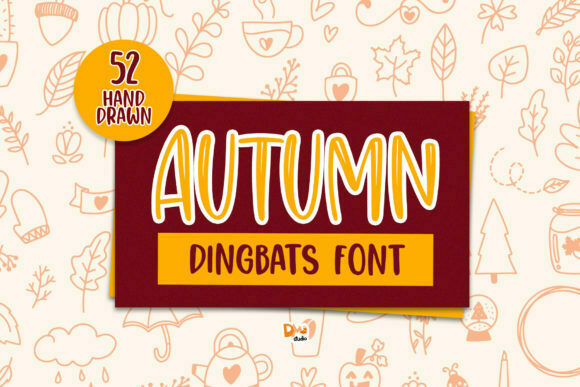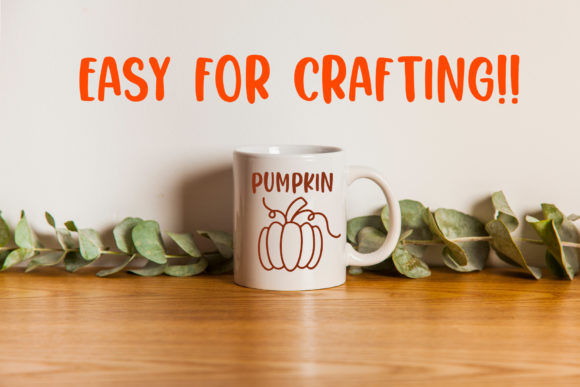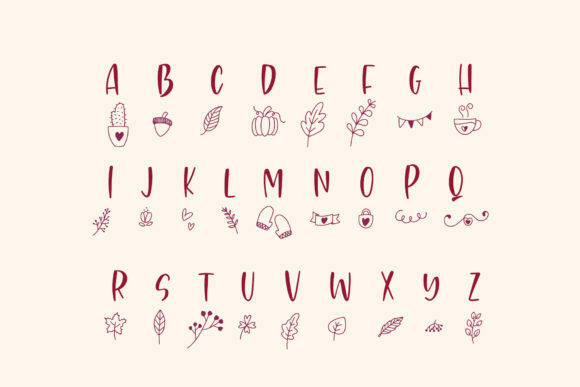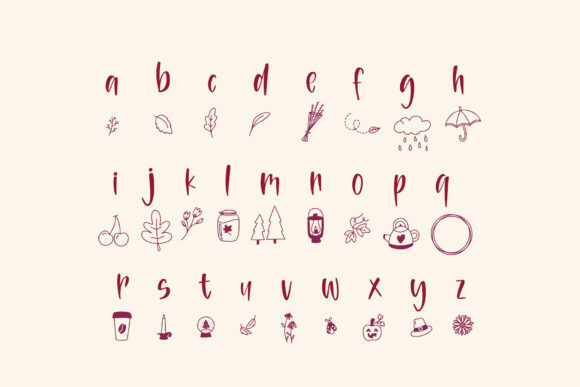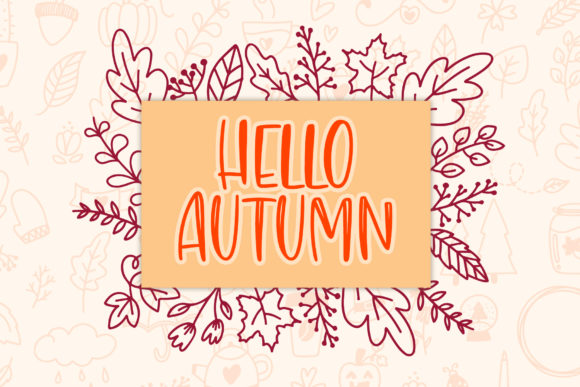
About Autumn Font
Absolutely! Autumn is a cute and unique dingbats font that can bring your fall designs to the next level. Here are some ways you can use the Autumn font to enhance your projects:
1. Fall Greeting Cards: Create charming and festive fall-themed greeting cards using the Autumn font. Incorporate the doodles as decorative elements, borders, or dividers to complement your message. Whether it’s for Thanksgiving, Halloween, or simply celebrating the beauty of the season, the Autumn font will add a touch of whimsy to your cards.
2. Seasonal Invitations: Design eye-catching invitations for your fall events using the Autumn font. Use the doodles to create captivating visuals, such as leaves, pumpkins, or acorns, to set the tone for your gathering. Whether it’s a fall festival, harvest party, or a cozy get-together, the Autumn font will add a playful and unique touch to your invitations.
3. Seasonal Decorations: Bring the spirit of autumn into your decorations using the Autumn font. Use the doodles to create custom labels, signs, or banners for your fall-themed displays. Whether you’re decorating for a home, office, or event, the Autumn font will add a whimsical and charming element to your seasonal decor.
4. Social Media Graphics: Make your social media posts and graphics more engaging with the Autumn font. Use the doodles as decorative icons or borders to enhance your visual content. Whether you’re promoting fall sales, sharing seasonal recipes, or simply embracing the beauty of autumn, the Autumn font will add a unique and eye-catching element to your designs.
5. Scrapbooking: Preserve your fall memories in style using the Autumn font. Use the doodles as decorative elements or embellishments in your scrapbooking layouts. Whether you’re documenting a trip to the pumpkin patch, a fall hike, or family gatherings, the Autumn font will add a whimsical and playful touch to your scrapbook pages.
6. Fall-themed Products: If you create fall-themed products, incorporate the Autumn font into your packaging and branding materials. Use the doodles as part of your labels, tags, or product designs to create a cohesive and visually appealing look. The Autumn font will help your products stand out and convey the essence of the fall season.
Remember to experiment with different combinations of the Autumn font, typography, and colors to create unique and visually captivating designs. Let the font’s cute and unique elements inspire you to embrace the beauty of autumn and create outstanding fall-themed projects.